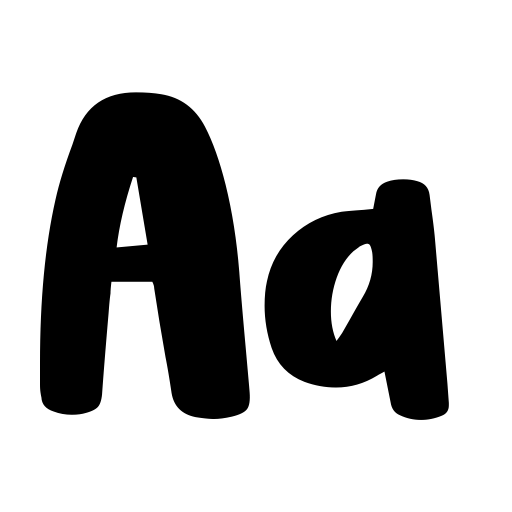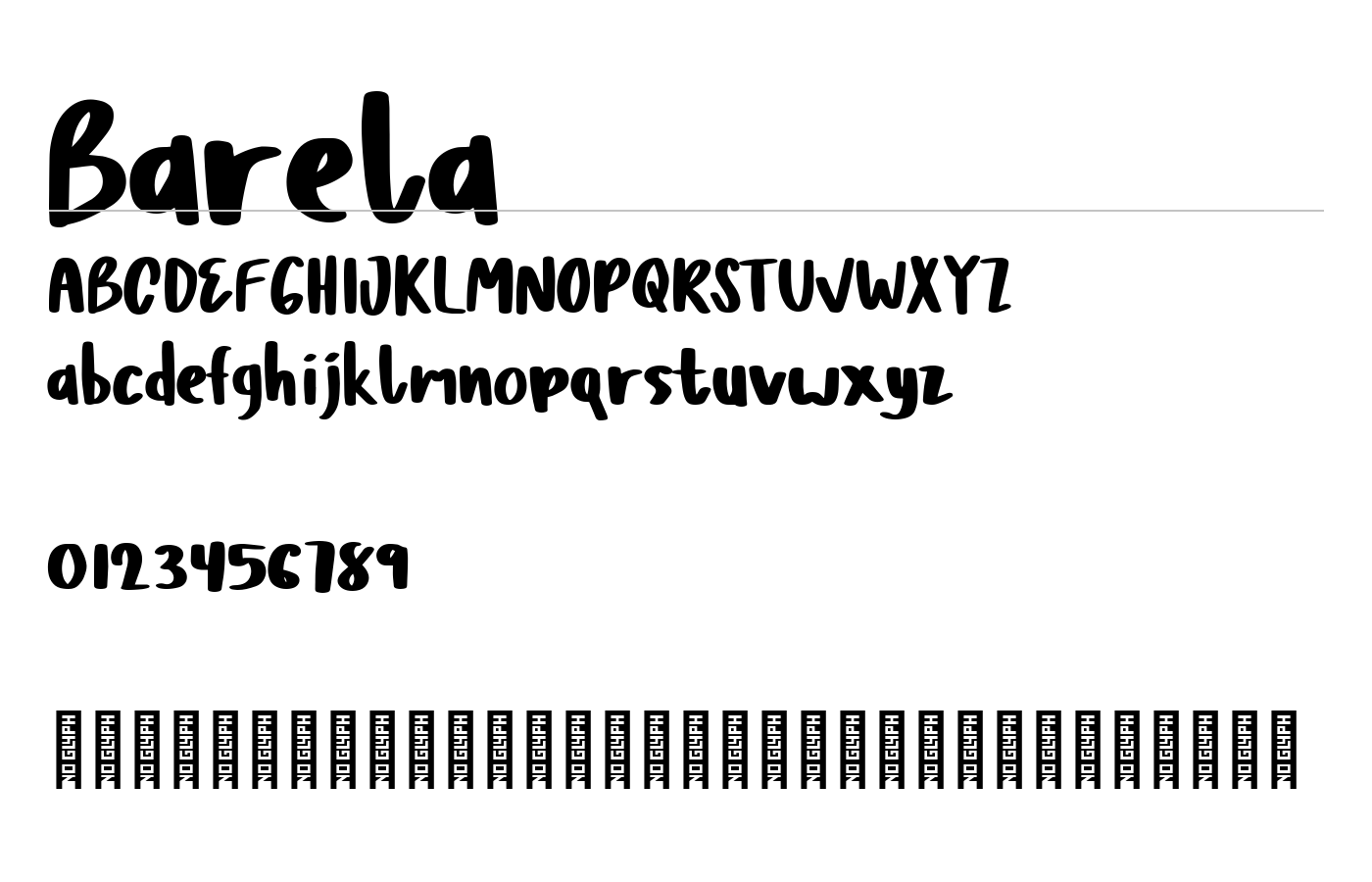
Barela is a bold, playful sans serif font with a hand-drawn, casual feel. Its rounded, slightly irregular letterforms create a friendly and approachable style, making it great for informal branding, children’s products, or creative projects that want a warm, human touch. This font works well for headlines, logos, and packaging where a fun, energetic vibe is desired.
Barela Font
About Barela Font
| Font family | Barela Font |
| Designer | Arini Hanindharputri |